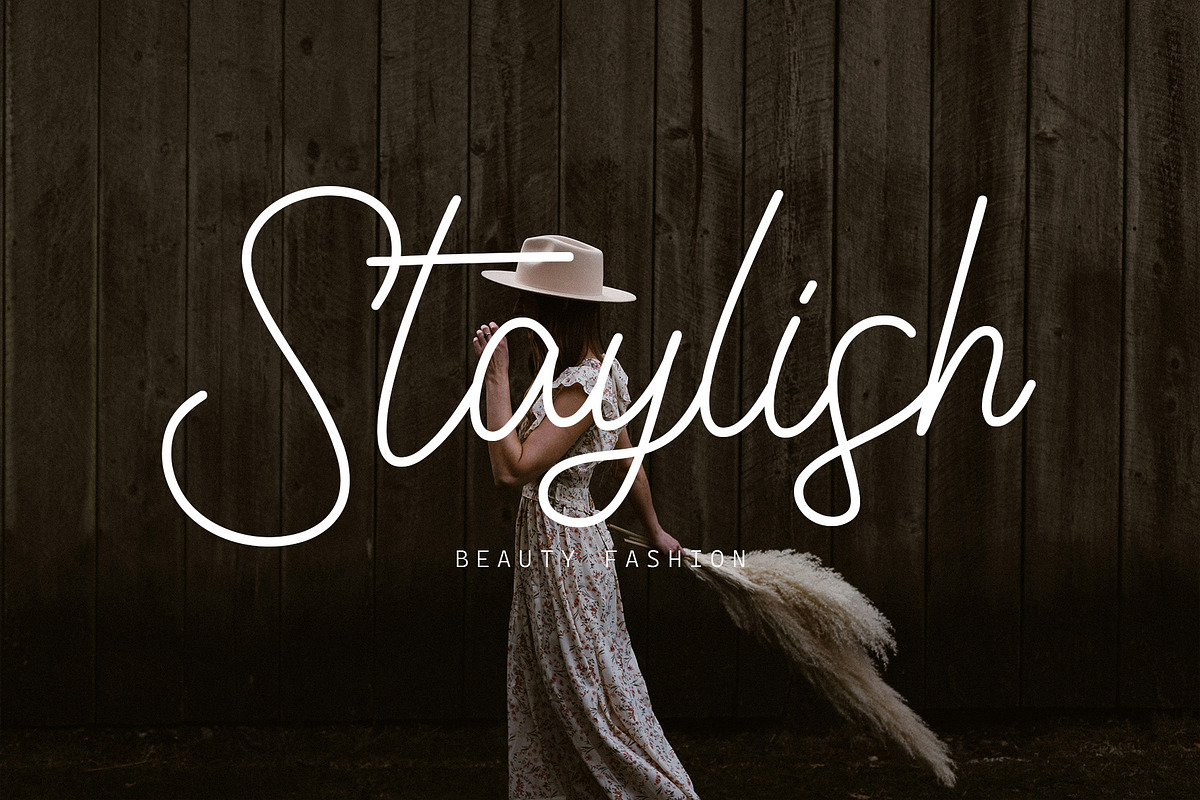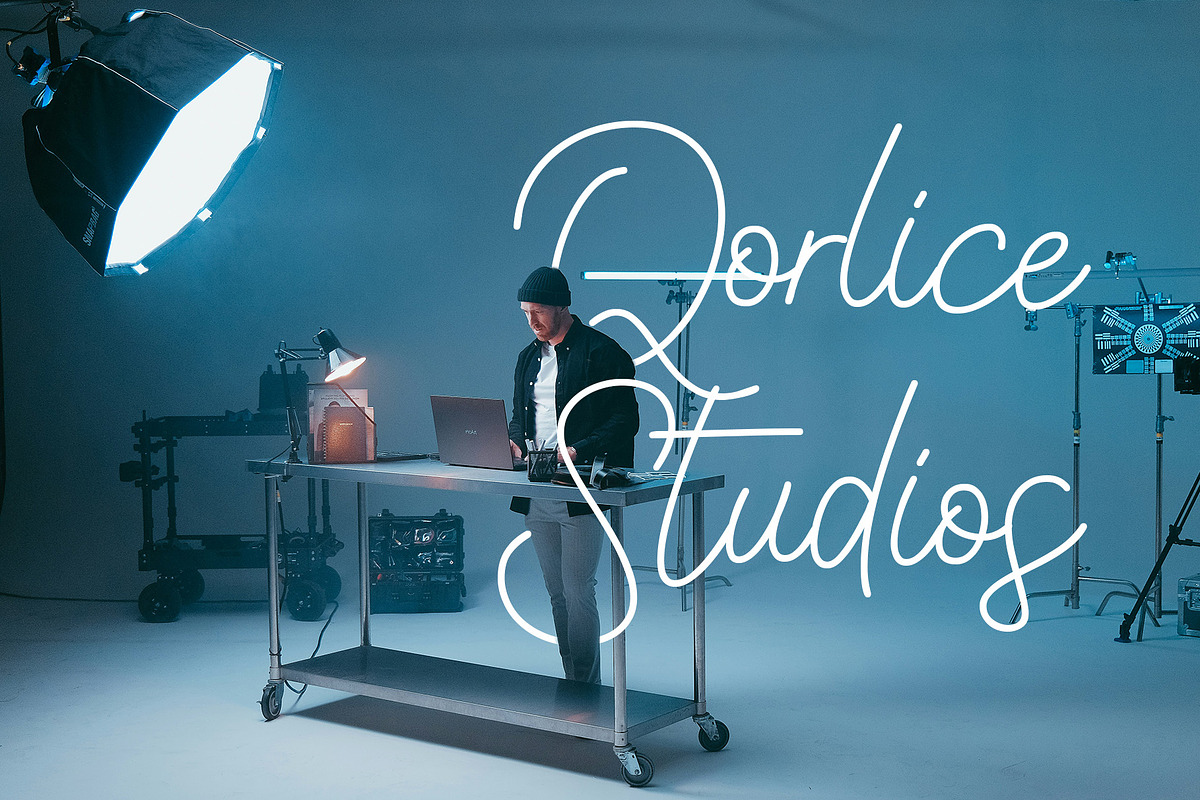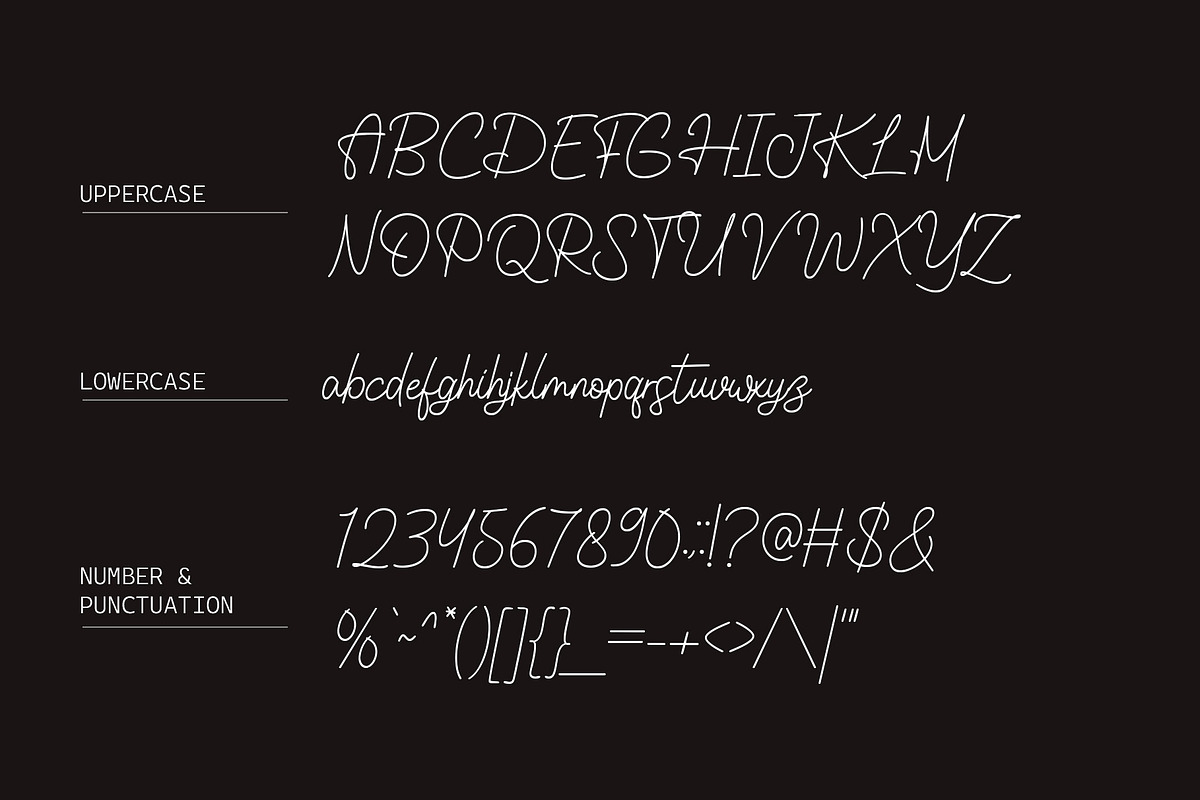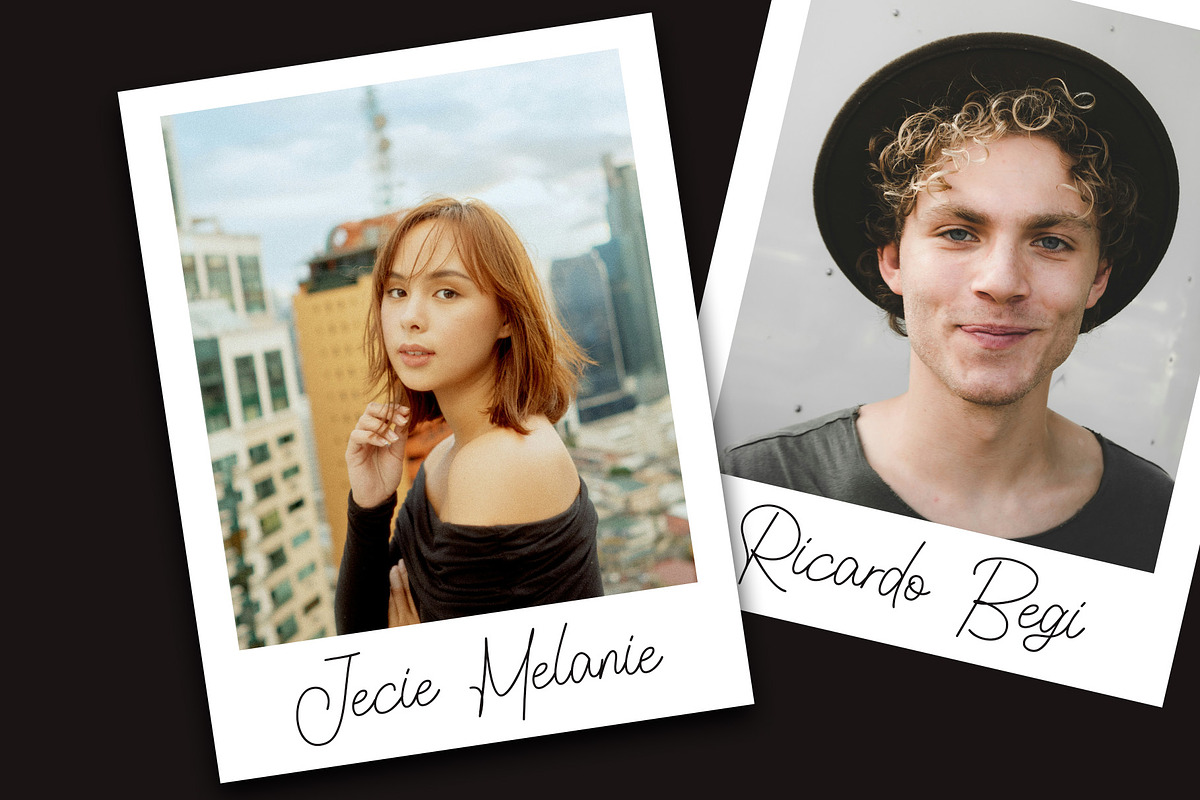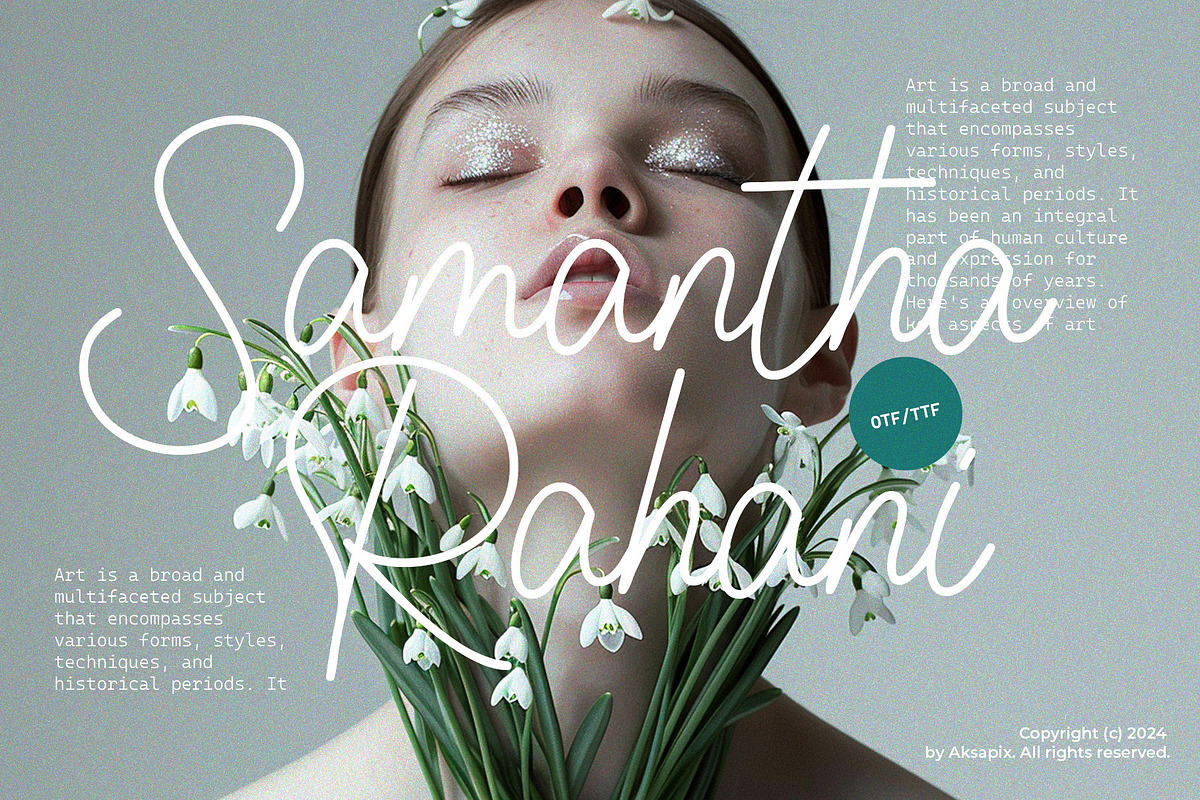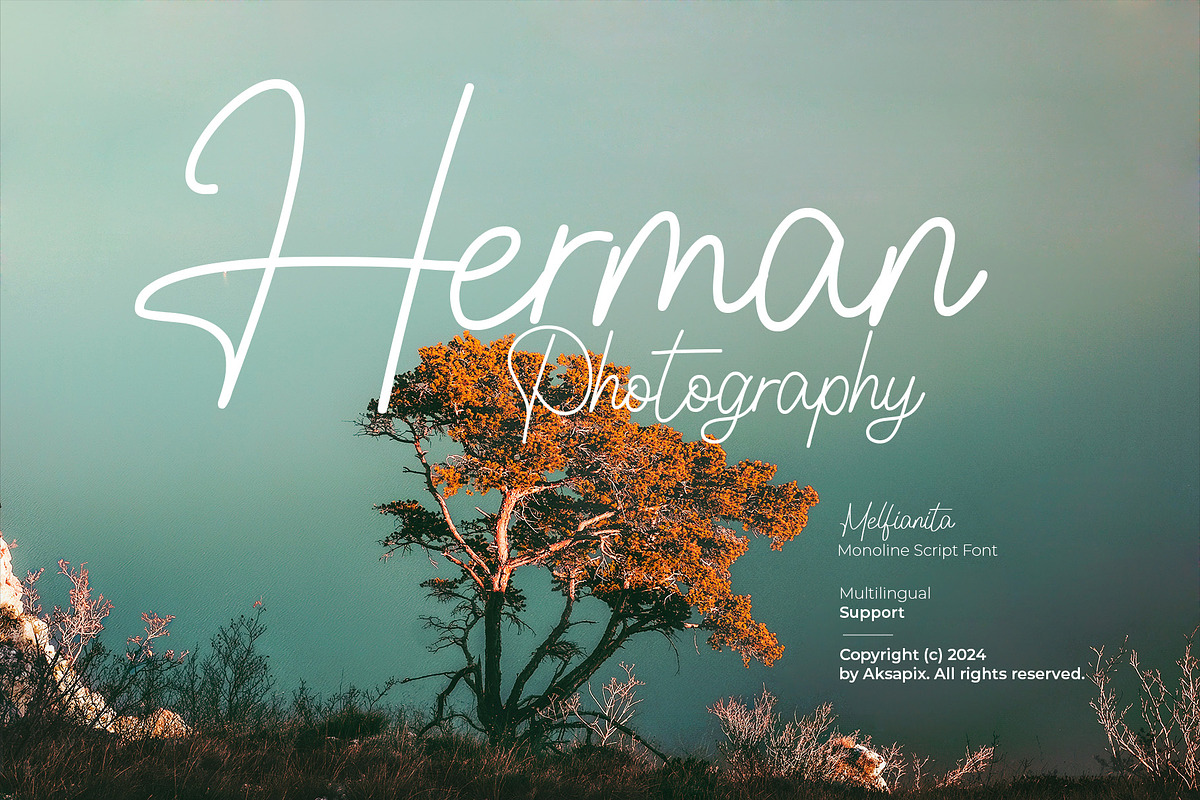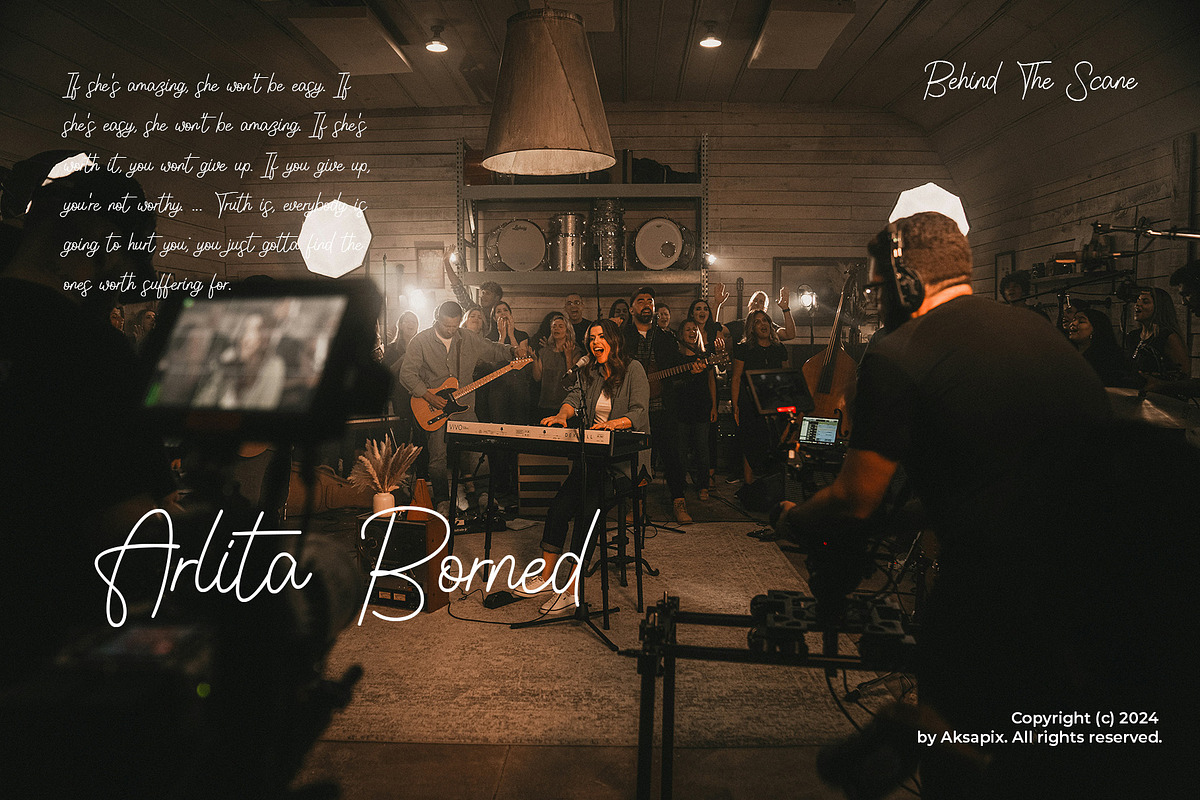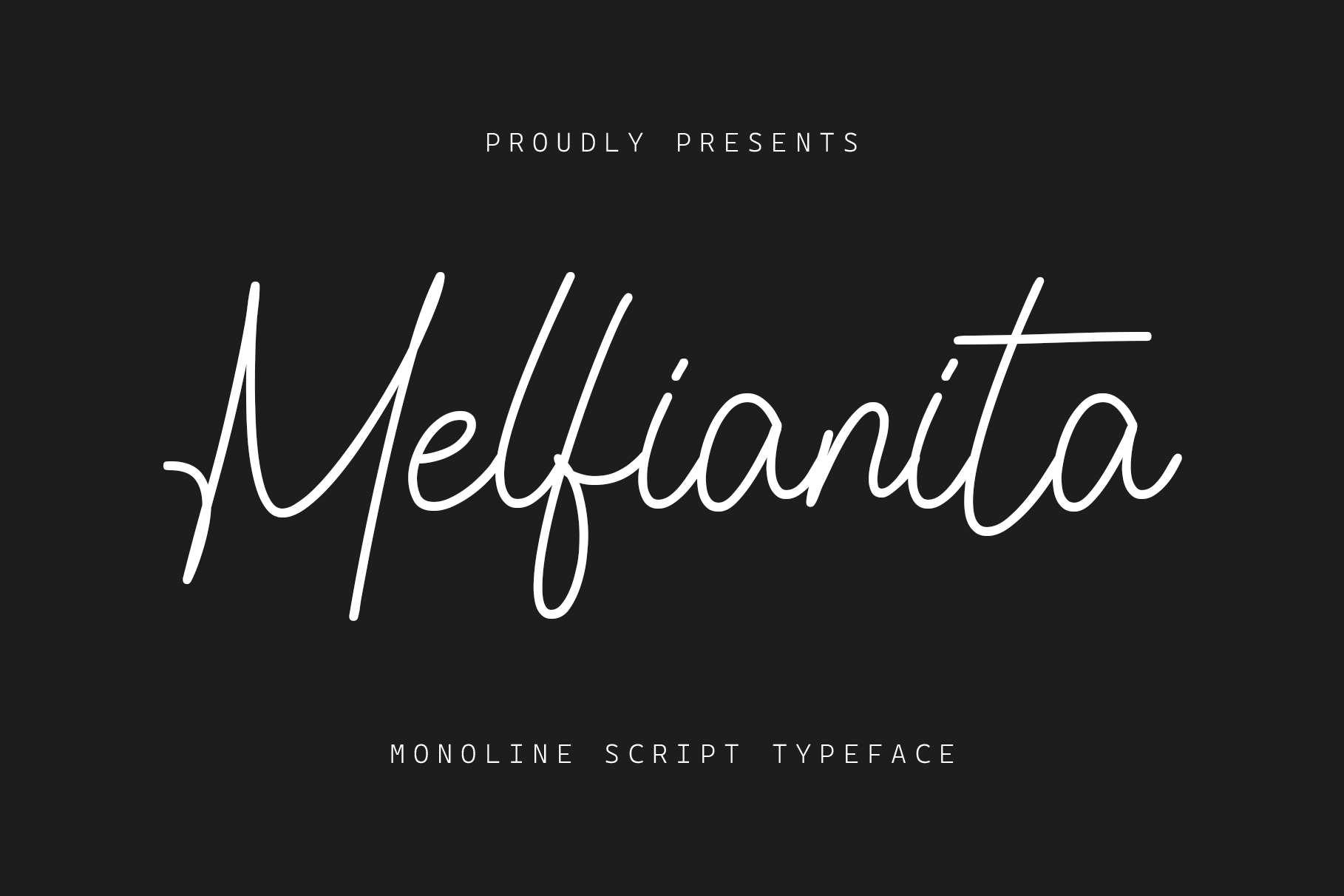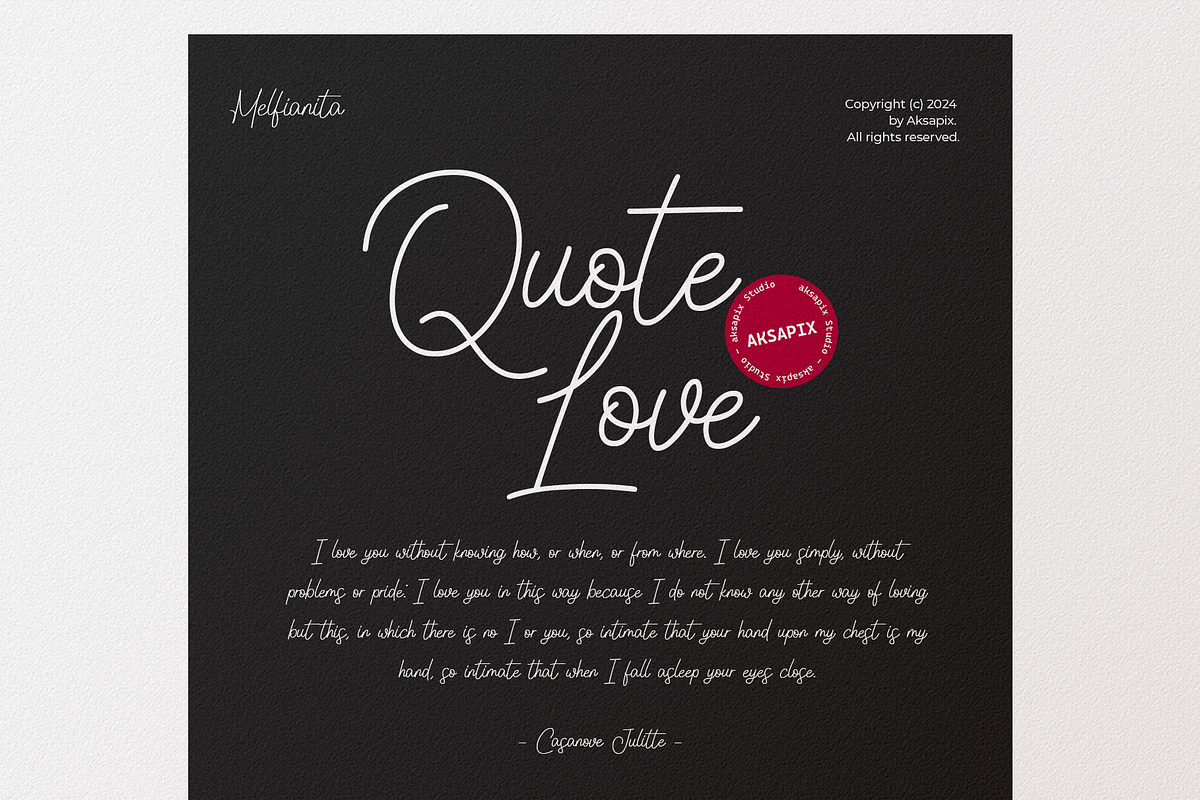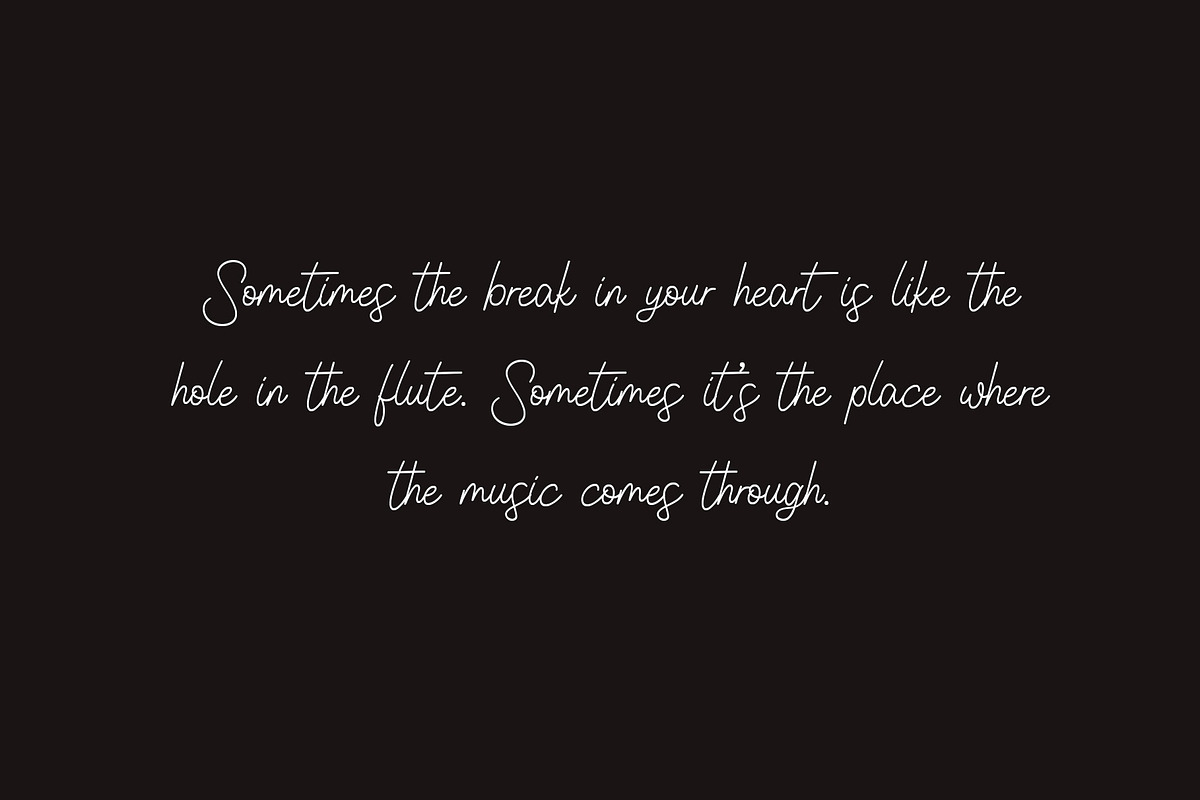
Melfianita - Monoline Script Font
Introducing Melfianita - Monoline Script Font, a beautifully crafted typeface that combines elegance and simplicity. Melfianita's sleek monoline design is perfect for adding a touch of sophistication to any project. With its smooth curves and balanced flow, this font is ideal for a wide range of creative applications. Melfianita includes a full set of standard characters (uppercase, lowercase, numbers, and punctuation) and offers multilingual support, ensuring versatility and usability in any design.
Book and Magazine Covers
Signature Logos
Business Cards
Elegant Advertisements
Bring a touch of elegance to your designs with Melfianita - Monoline Script Font. Whether you're designing a stylish book cover, a sophisticated logo, or an elegant business card, Melfianita adds a charming and refined look to every project.